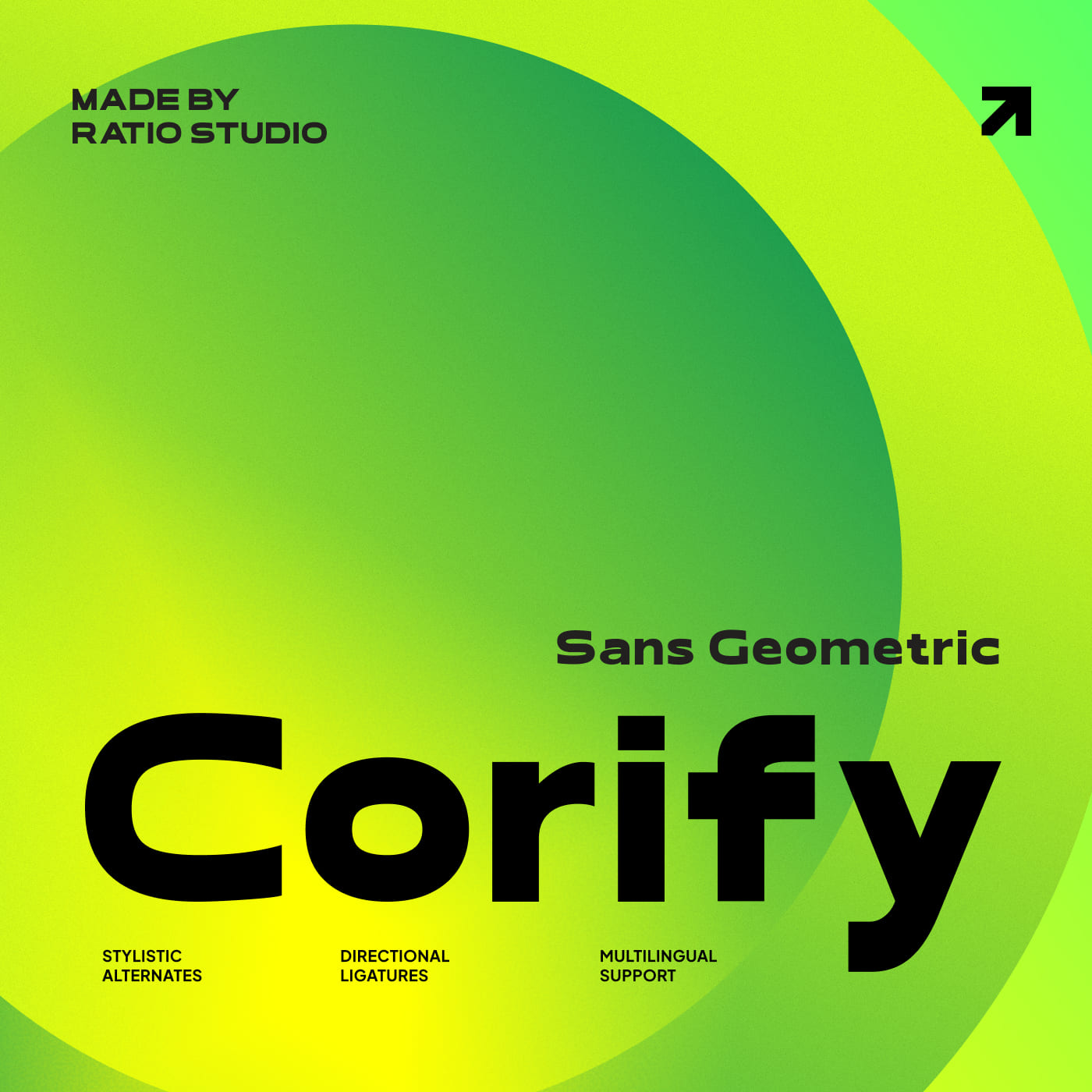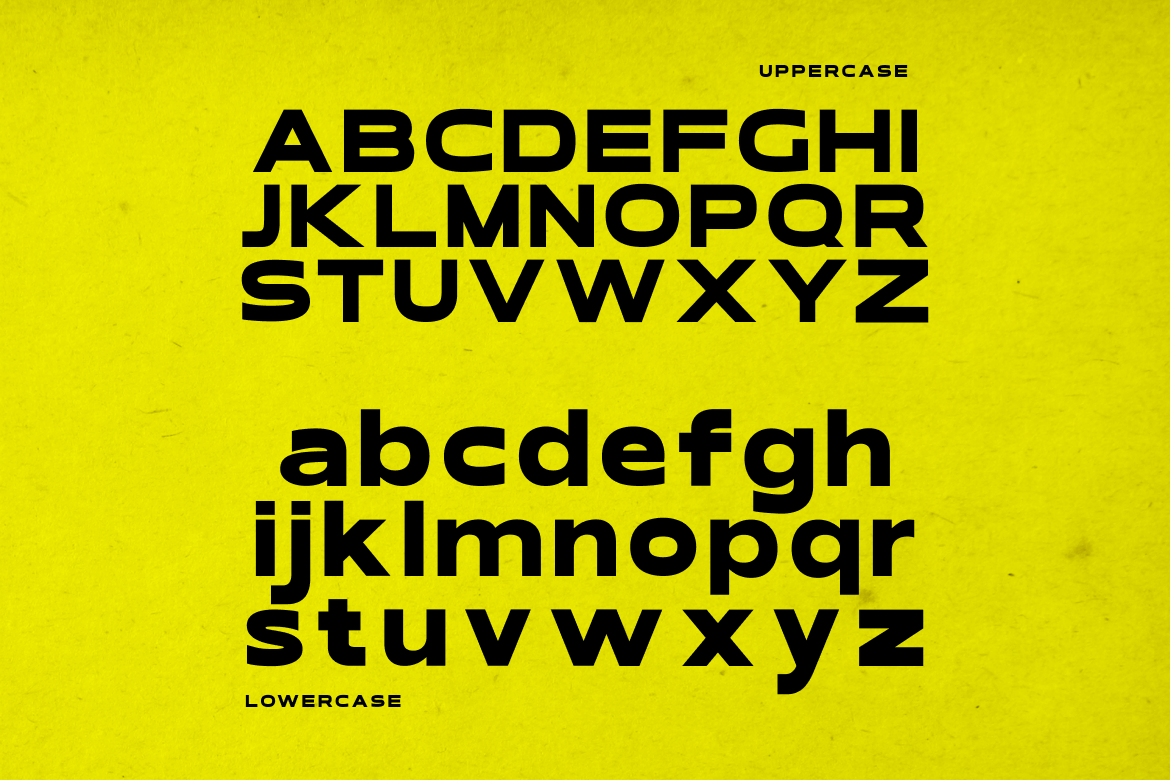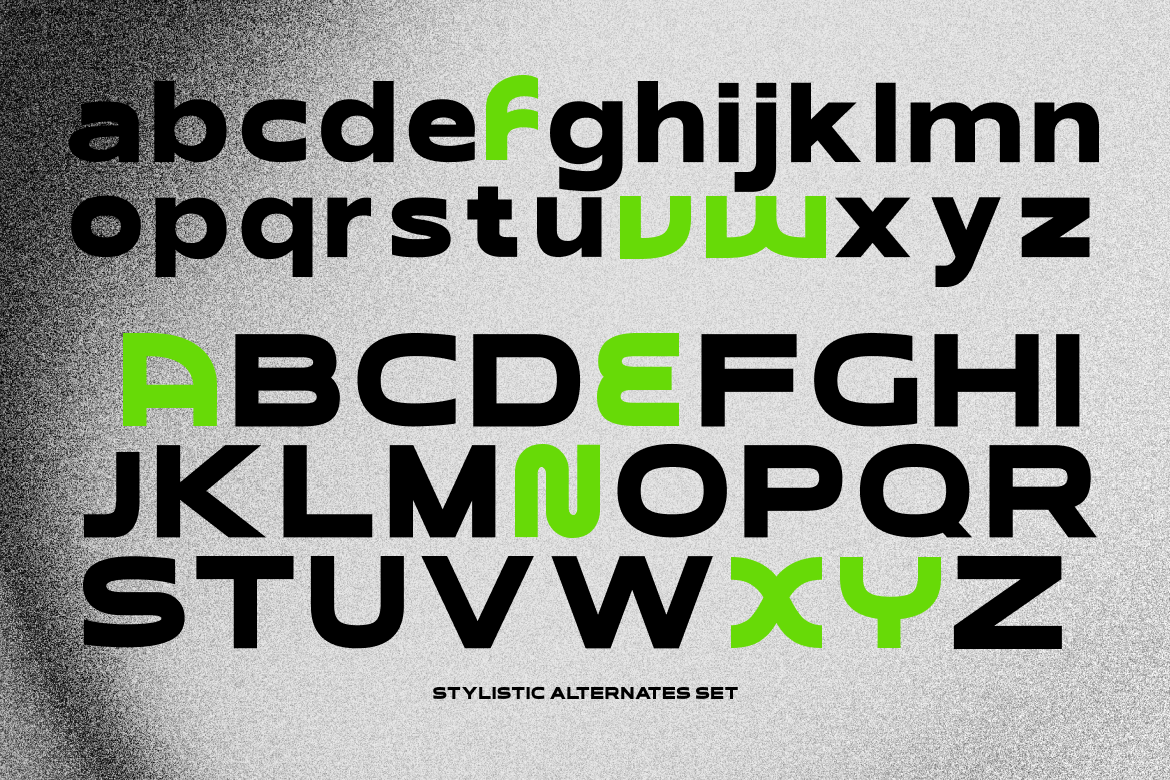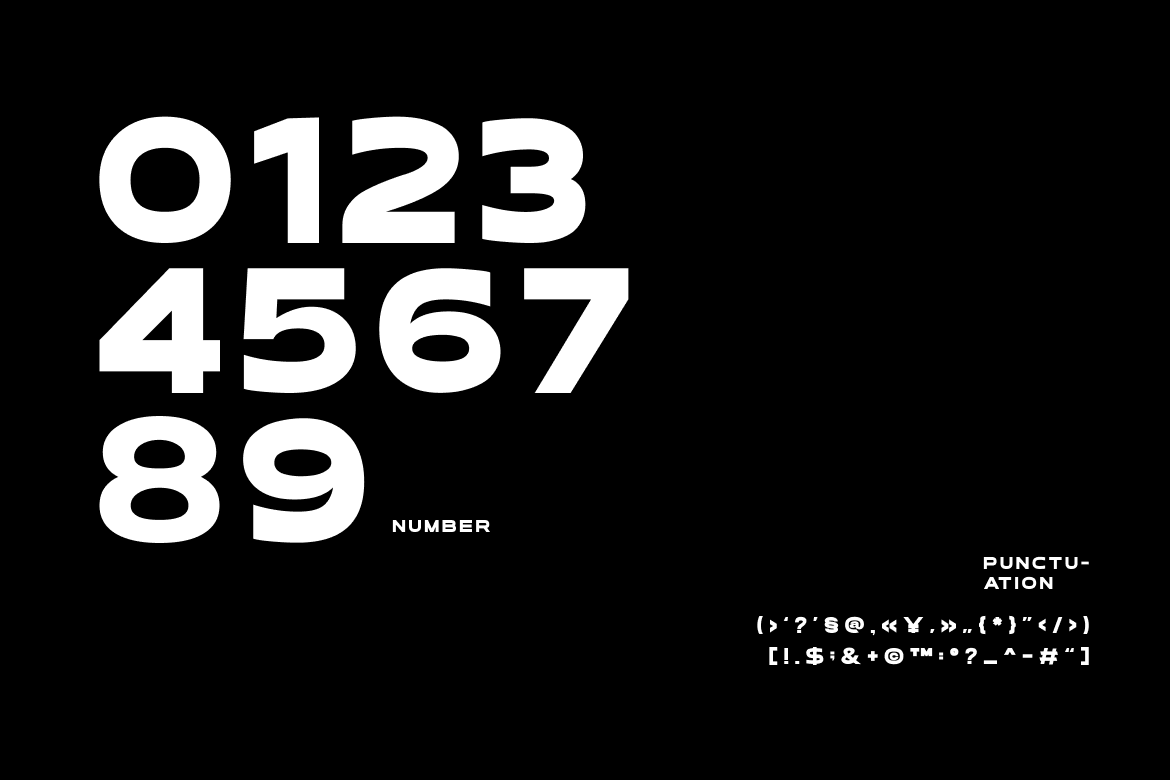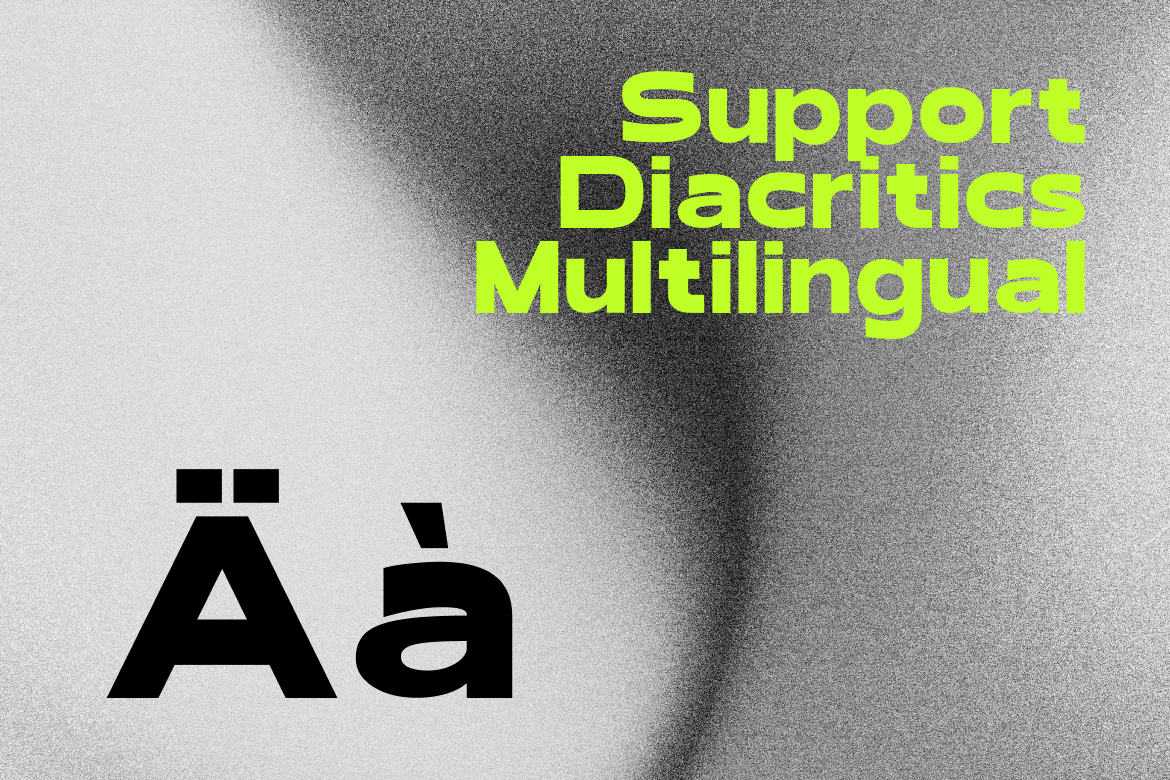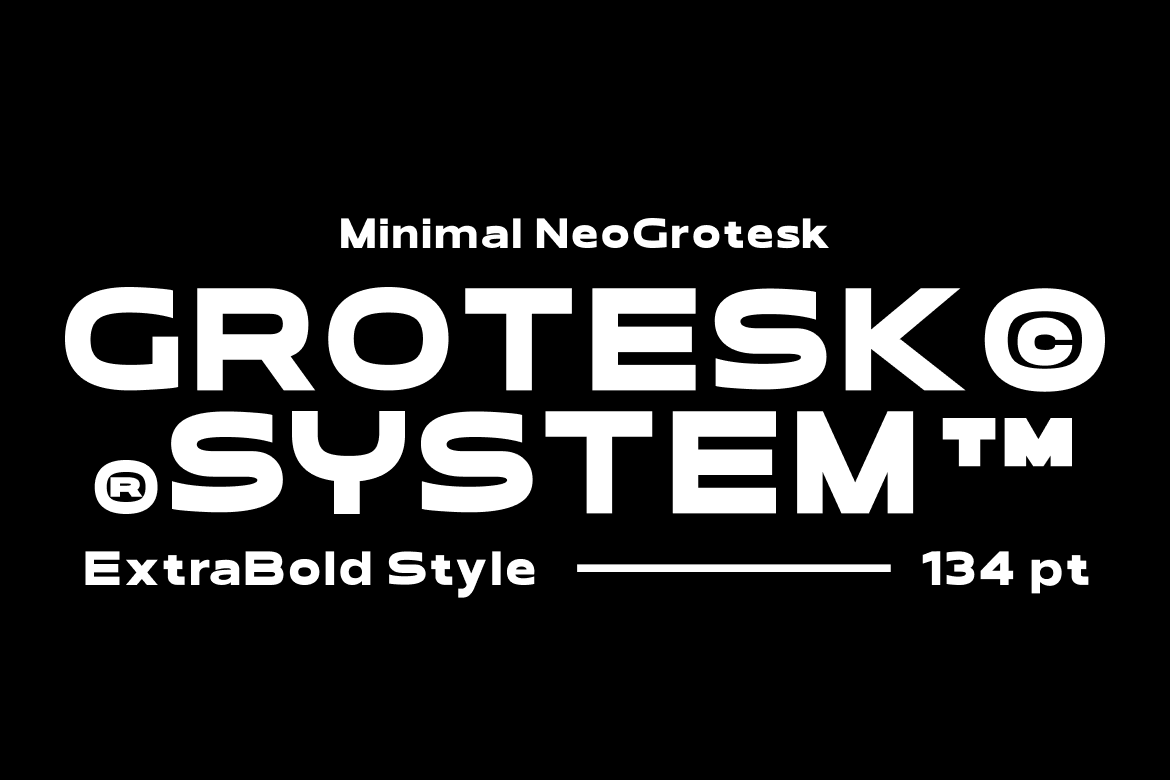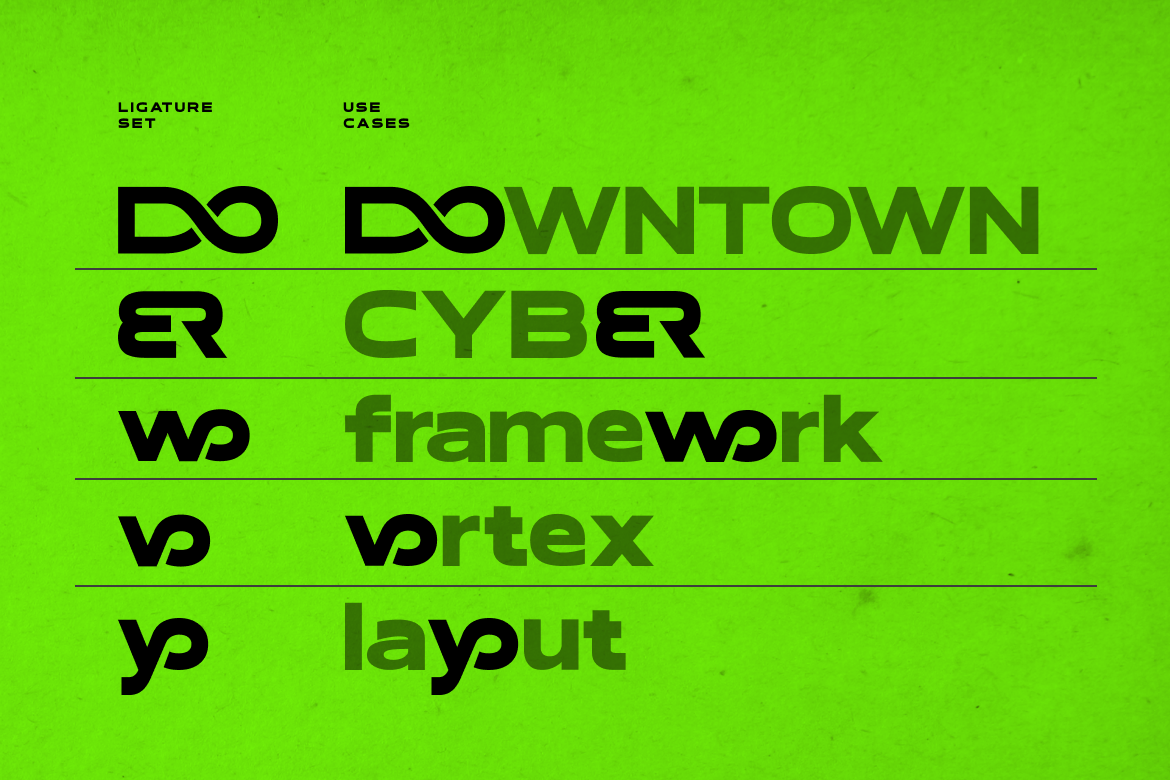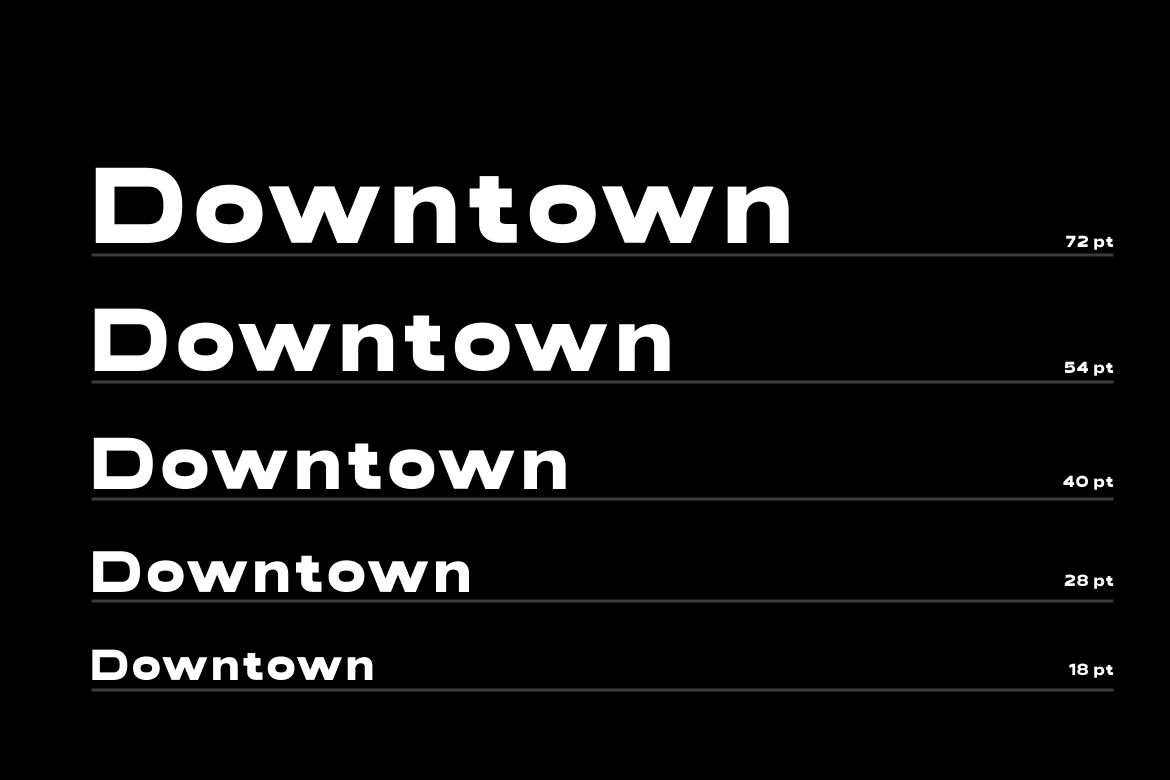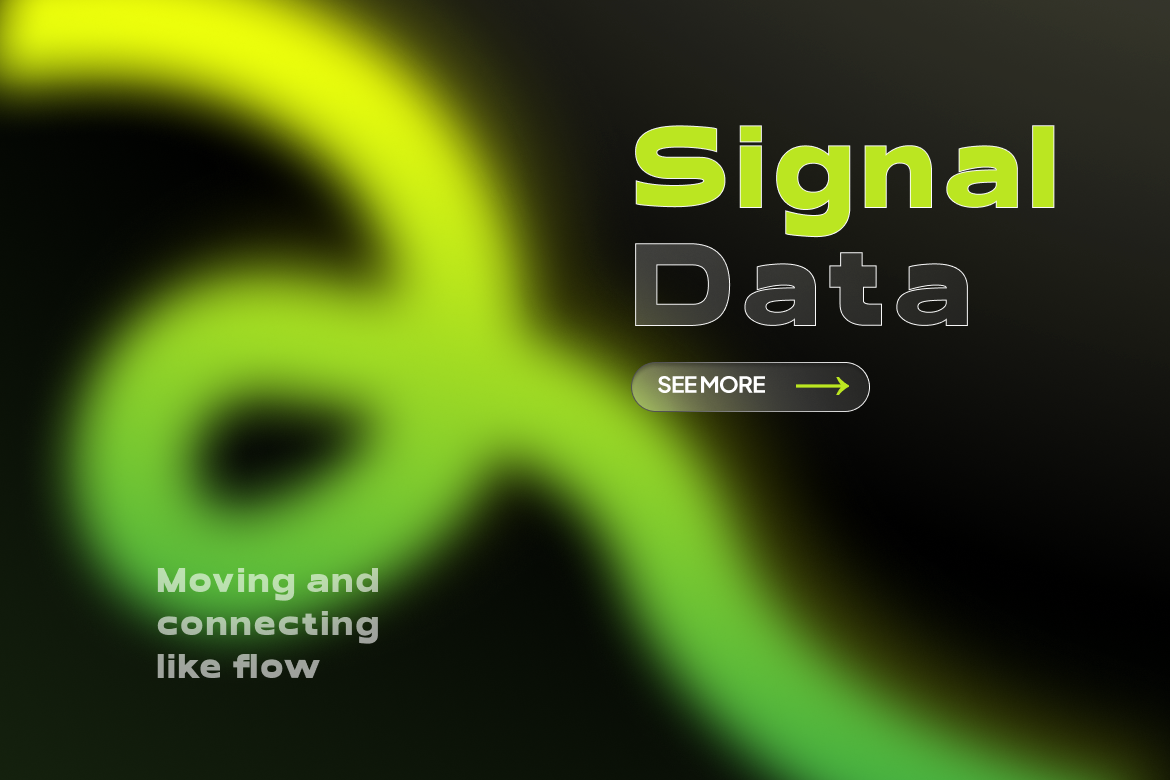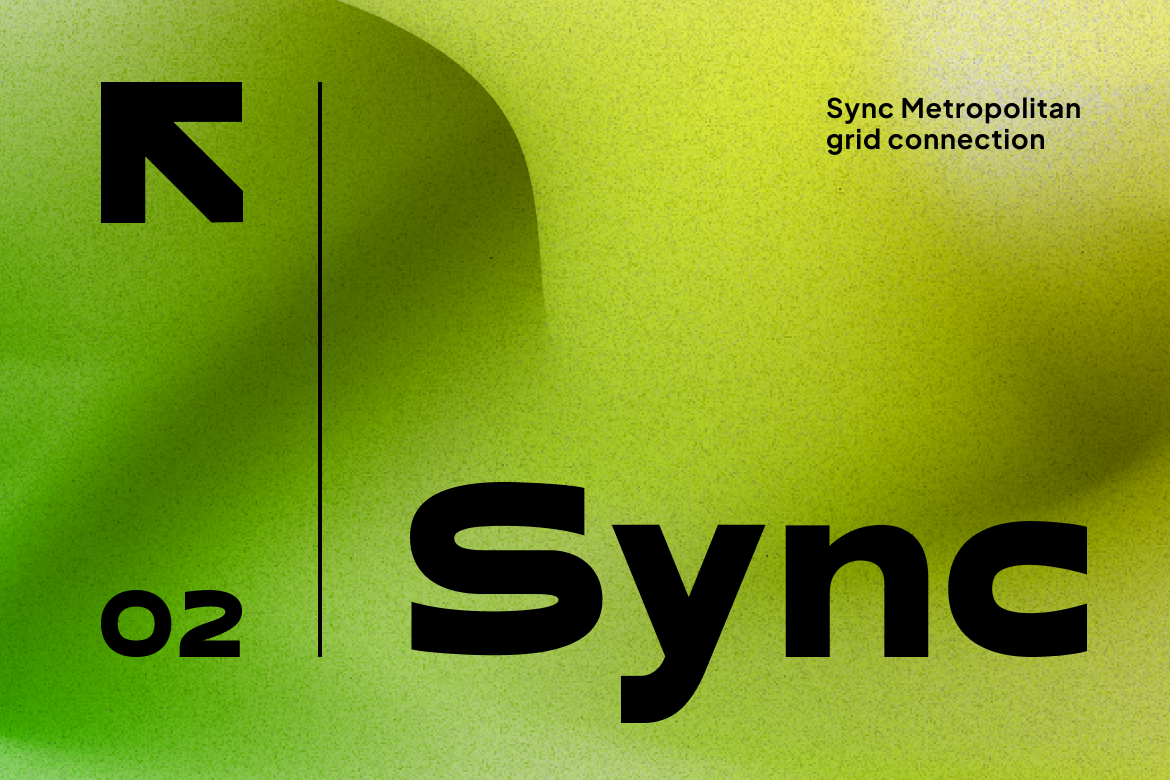
Corify Sans Geometric Font
Corify is a bold geometric sans serif font designed with precision, versatility, and a strong modern aesthetic. Its clean construction and innovative alternate forms make it ideal for both digital and print use. Featuring unique directional ligatures and a futuristic visual tone, Corify merges functional design with experimental geometry to create a striking and adaptable type system.
Relevance and Use Cases is perfect for branding identity, technology startups, editorial headlines, website UI, motion graphics, packaging design, modern advertising, and professional creative projects that emphasize clarity and innovation.
Numerals & Punctuation
Stylistic Alternates
Directional Ligatures
Diacritics & Multilingual Support
Corify Sans Geometric Font is a bold geometric sans serif typeface available in OTF, TTF, and WOFF formats, including uppercase and lowercase letters, numerals, punctuation, stylistic alternates, directional ligatures, and diacritics with multilingual support.